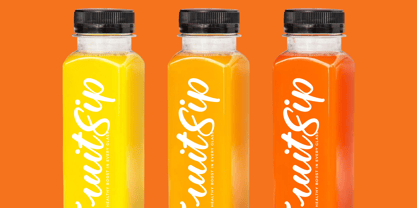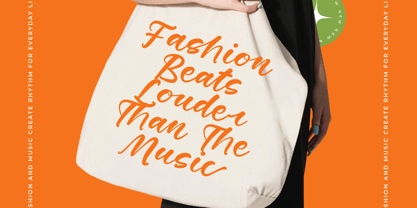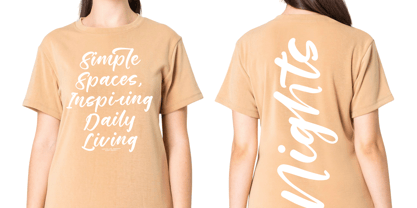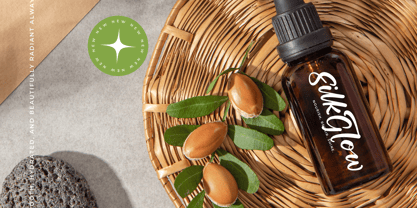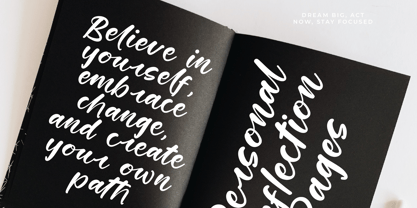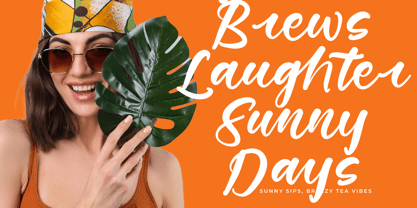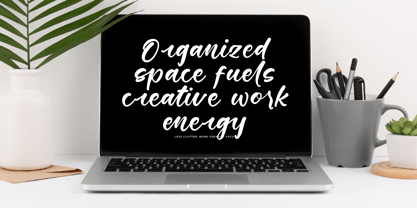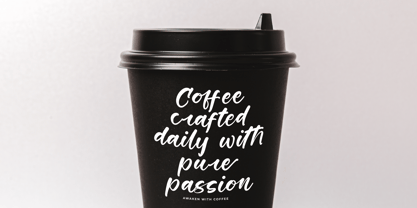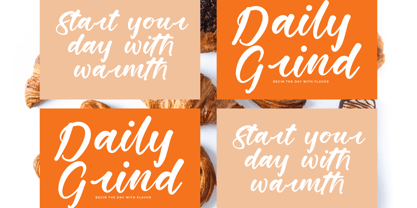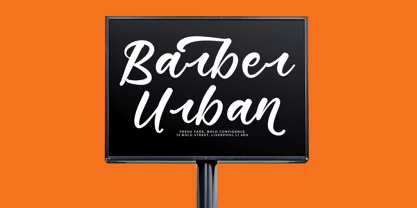
Starfall Nights
The Starfall Nights Font Family was designed by Heru Utama Putra and published by Stylishtype Studio. Starfall Nights contains 2 styles and family package options.
Starfall Nights - New Modern Handbrush Script , from Stylishtype , Suitable for any projects such as: logos, branding projects, homeware designs, product packaging, mugs, quotes, posters, shopping bags, t-shirts, book covers, name card, invitation cards, greeting cards, label, photography, watermark, special events, and all your other luxury and beautiful projects that need a Luxury Script taste.